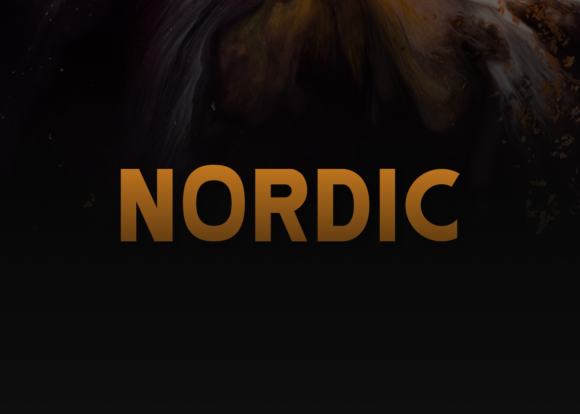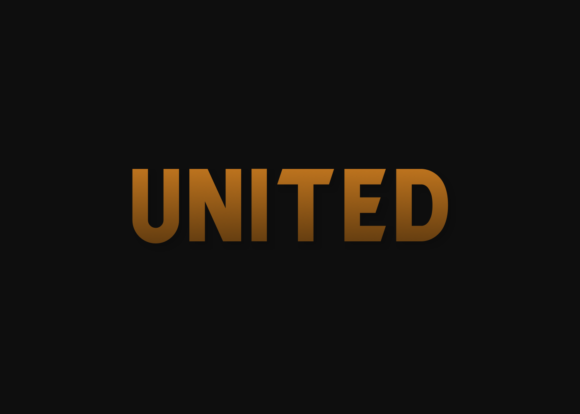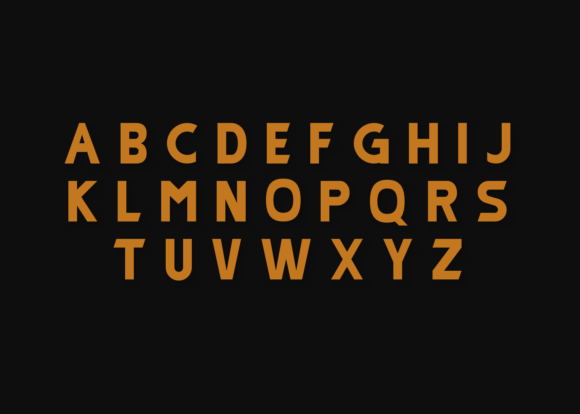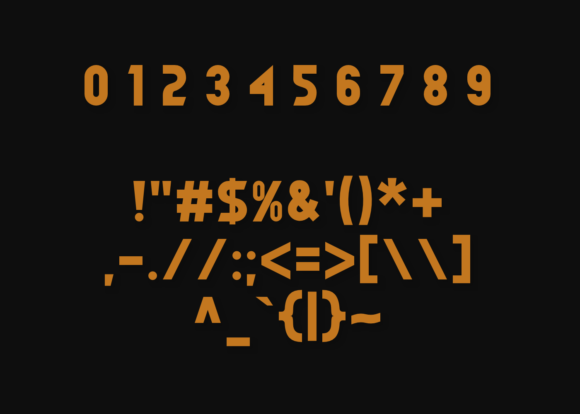
Introduction to Monorealis Font
Monorealis is a simple and neat sans serif font.
Modern and futuristic, it can easily be matched to an incredibly large set of projects, so add it to your creative ideas and notice how it makes them stand out .
Key Features of Monorealis Font
Why Choose Monorealis Font?